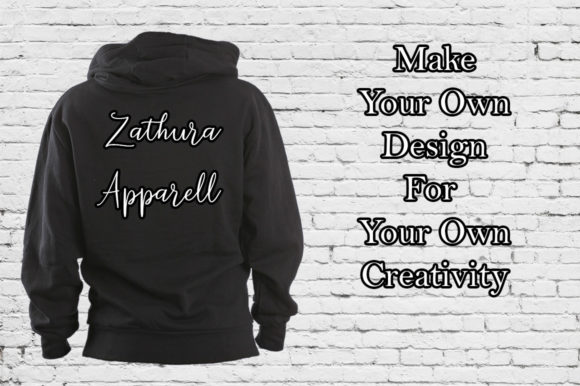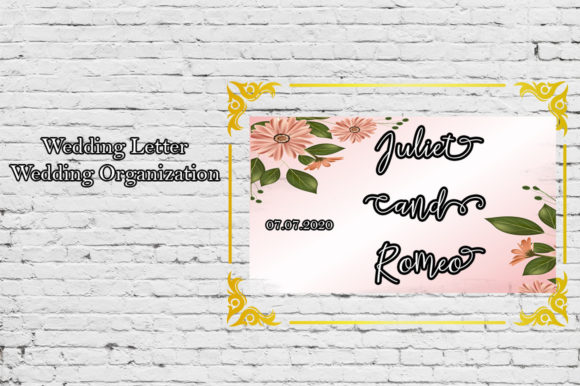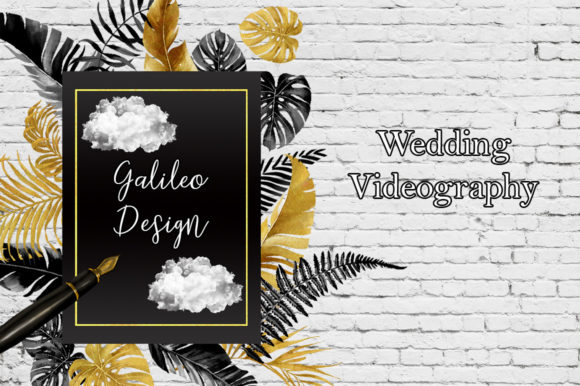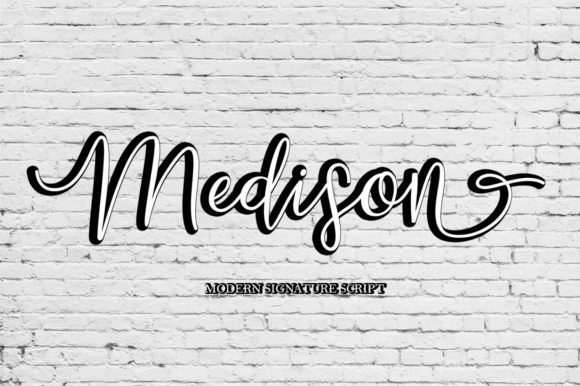
Introduction to Medison Script Font
Medison Script is a lovely and sweet calligraphy typeface with characters that dance along the baseline.
It will add a luxury spark to any design project that you wish to create This font is PUA encoded which means you can access all of the amazing glyphs and ligatures with ease.
Key Features of Medison Script Font
Why Choose Medison Script Font?
Medison Script Font offers exceptional quality and versatility, making it a valuable addition to your design toolkit. Whether you’re creating for personal projects or commercial use, Medison Script Font delivers professional results.